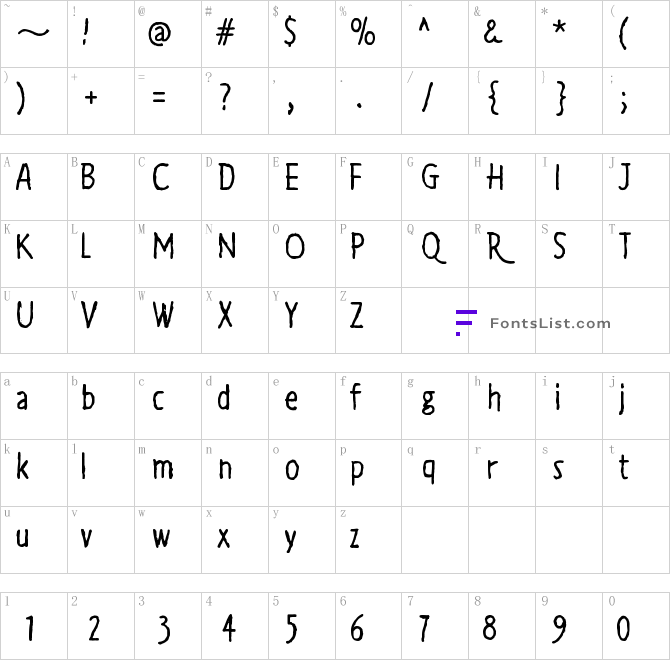
Auribus-tenere-lupum.ttf is a very beautiful artistic font, Auribus-tenere-lupum.ttf is widely used in the design and printing of various books and pictures,Auribus-tenere-lupum.ttf has a strong visual impact,Auribus-tenere-lupum.ttf is a commonly used font in newspapers, magazines and books, and is used in posters, e-commerce Poster design, store design, logo design, font design and other fields.Auribus-tenere-lupum.